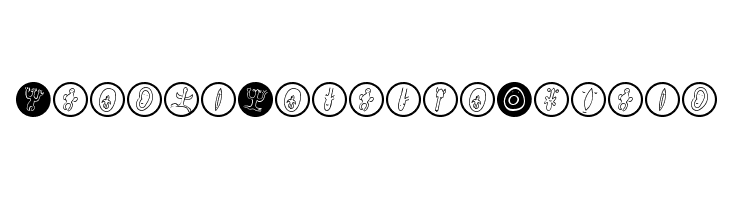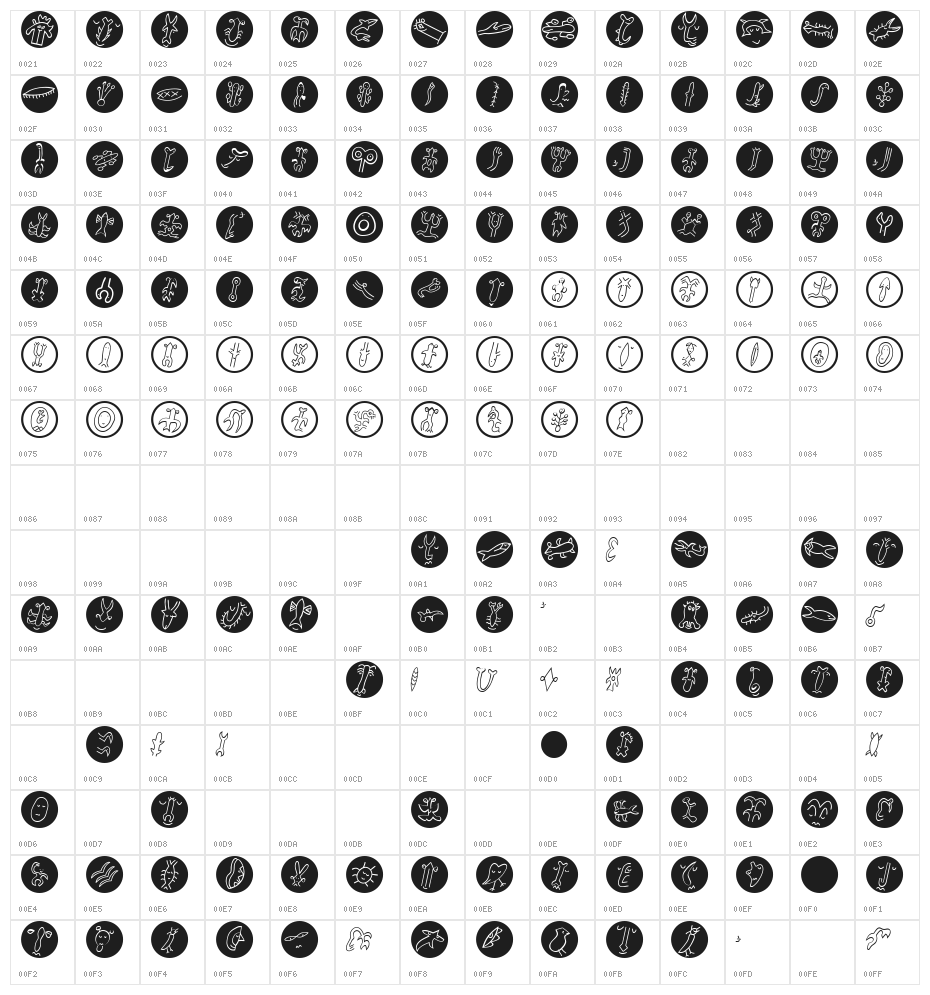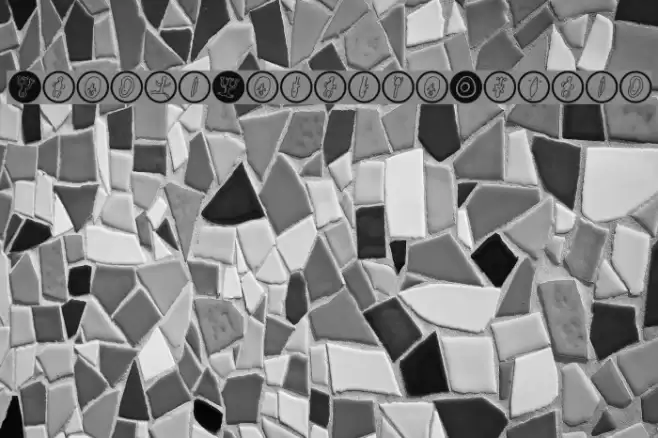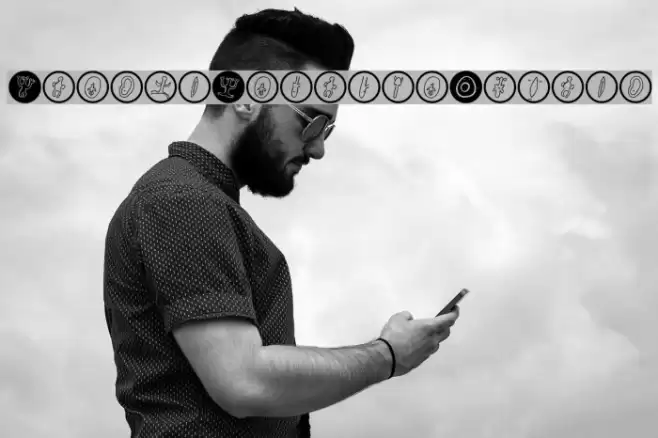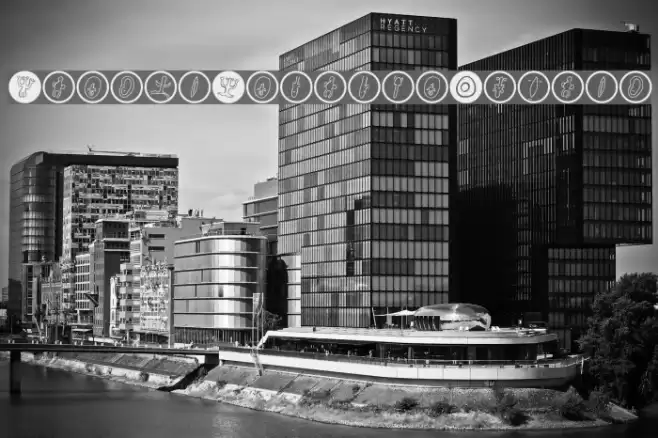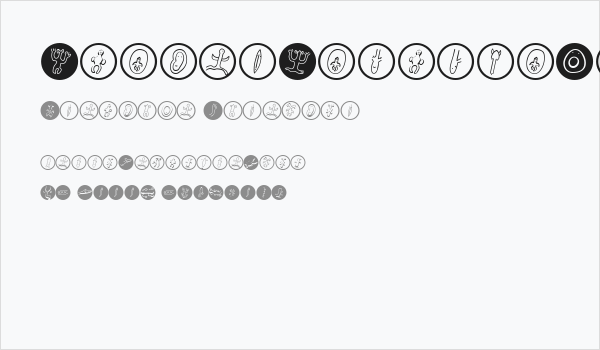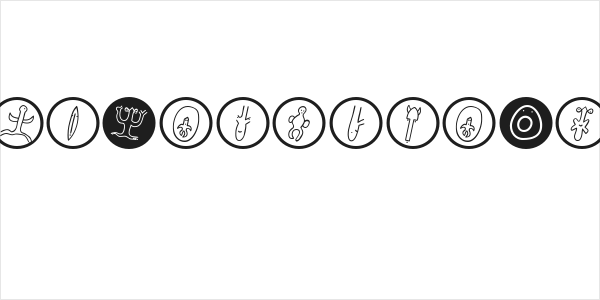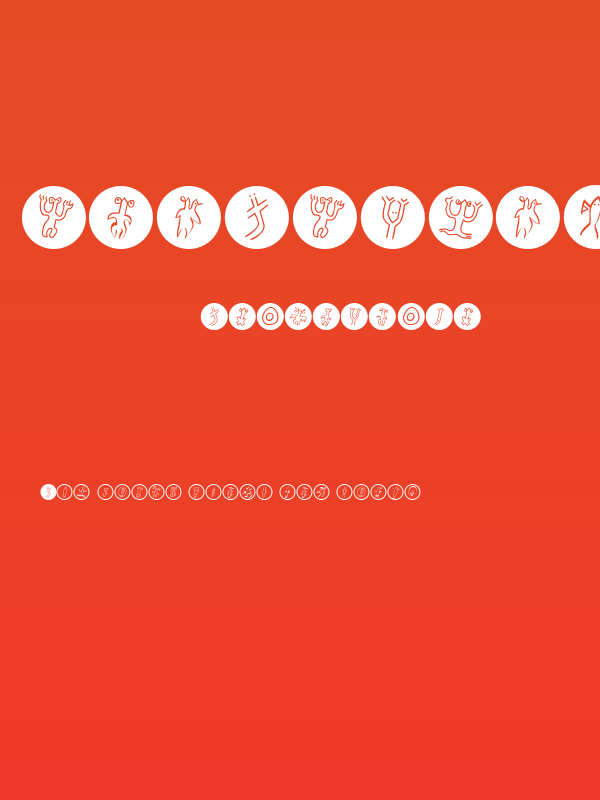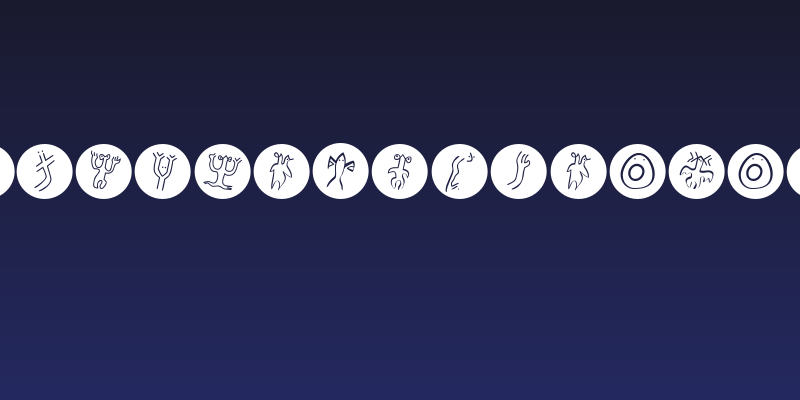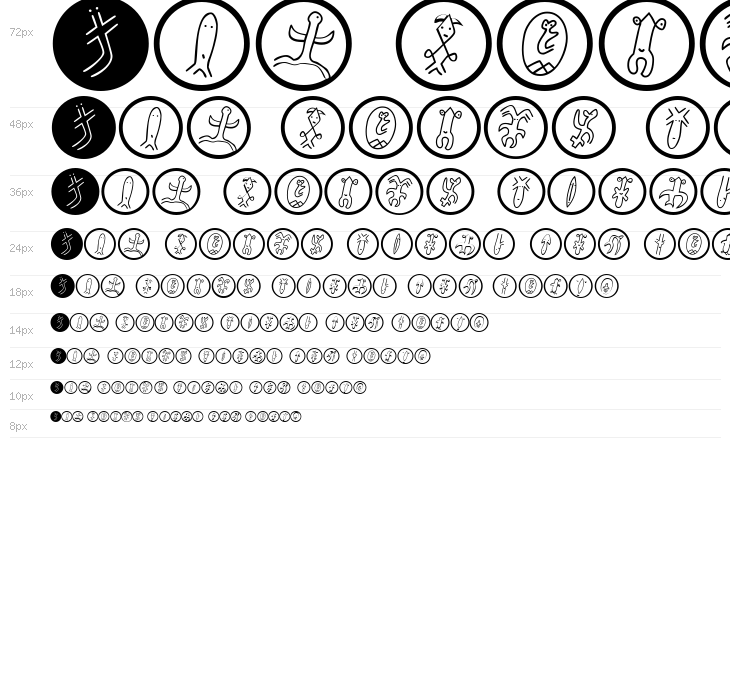
EasterIslandsPopart Font
EasterIslandsPopart Description
This set of symbols is inspired by the enigmatic and artistic motifs of Easter Island, featuring abstract and organic shapes that resemble ancient carvings or petroglyphs. Each character is encased in a circular form, giving it a distinct and cohesive appearance. The designs are intricate and varied, with some resembling human figures, animals, or abstract forms, all rendered in a bold, monochromatic style. The overall aesthetic is both mysterious and artistic, evoking a sense of ancient culture and modern pop art fusion. These symbols are not traditional alphanumeric characters but rather a collection of unique glyphs that could serve as decorative elements or artistic representations.
| Use Case | Logos, Decorative elements, Artistic projects |
| Proposed Projects | These symbols could be used in graphic design projects, such as creating unique logos, decorative posters, or themed artwork. They might also be suitable for use in fashion design, such as prints on clothing or accessories, or in interior design as part o |